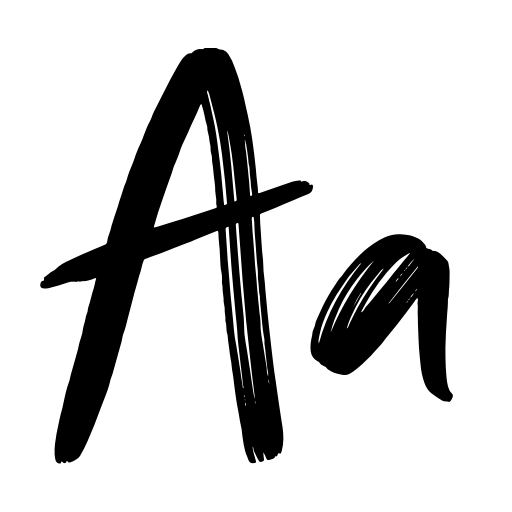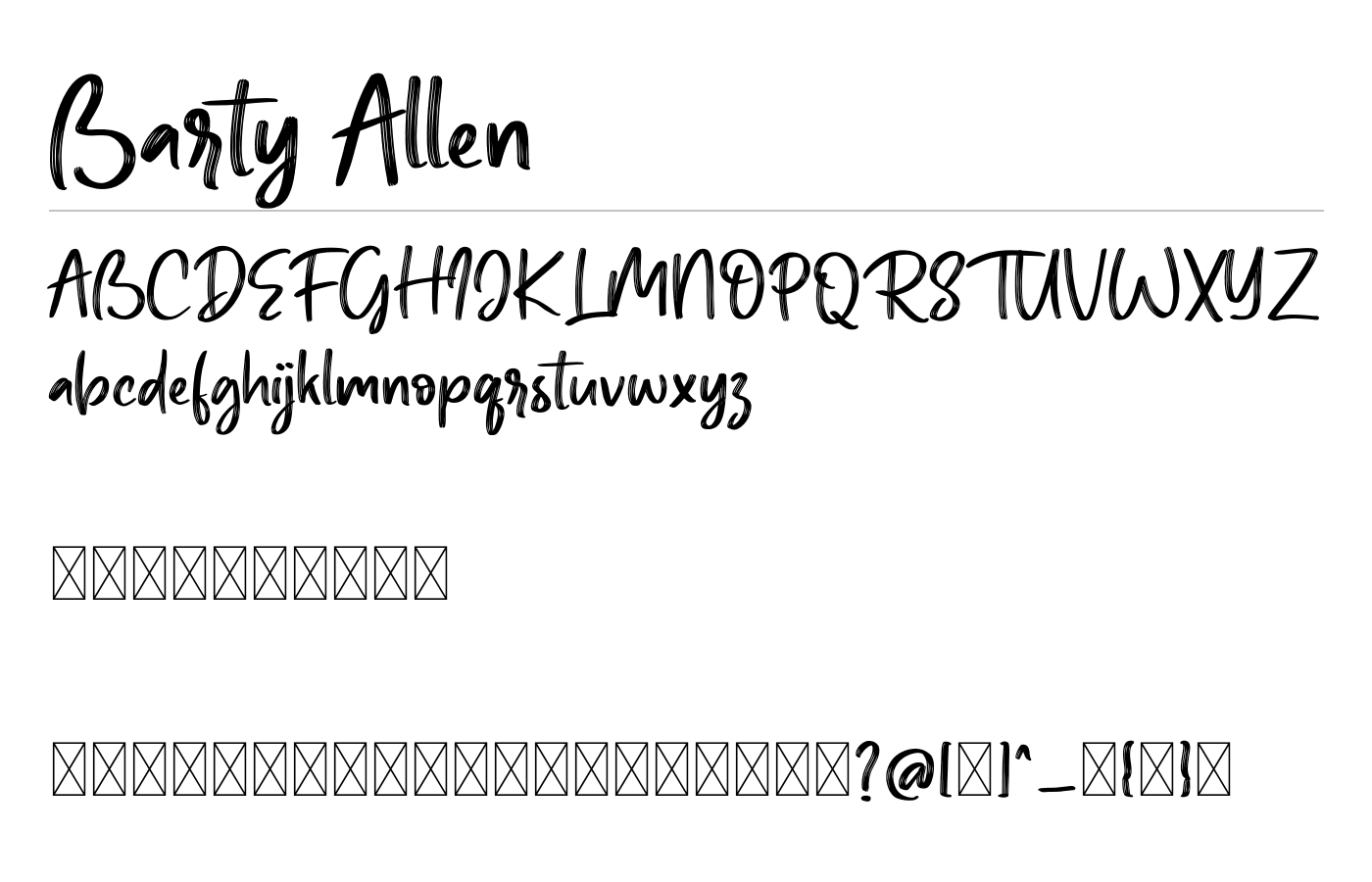
Barty Allen is a playful and casual script font with a hand-drawn feel, featuring smooth, flowing strokes and a lively personality. Its medium weight and tall x-height make it easy to read while maintaining an informal charm, perfect for creative branding, invitations, and social media graphics that need a personal touch. This font works well in designs aiming for warmth and approachability, combining style with legibility.
Barty Allen Font
About Barty Allen Font